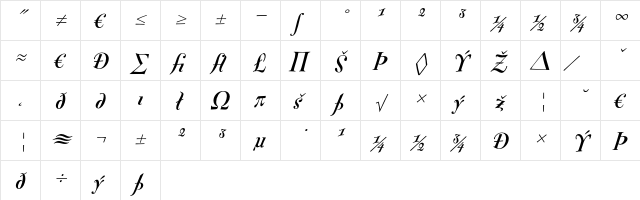
FontesqueText-BoldItalicExpert Regular Font Preview
Design Context for FontesqueText-BoldItalicExpert Typeface
FontesqueText-BoldItalicExpert is a composed and adaptable typeface that performs quietly and consistently across a wide range of design contexts. The slanted form adds forward momentum and visual energy. The heavy weight commands attention and anchors typographic hierarchies.
Pro Tip: Try FontesqueText-BoldItalicExpert for annotation and caption copy alongside an upright companion — the contrast in angle creates a dynamic but ordered typographic system.